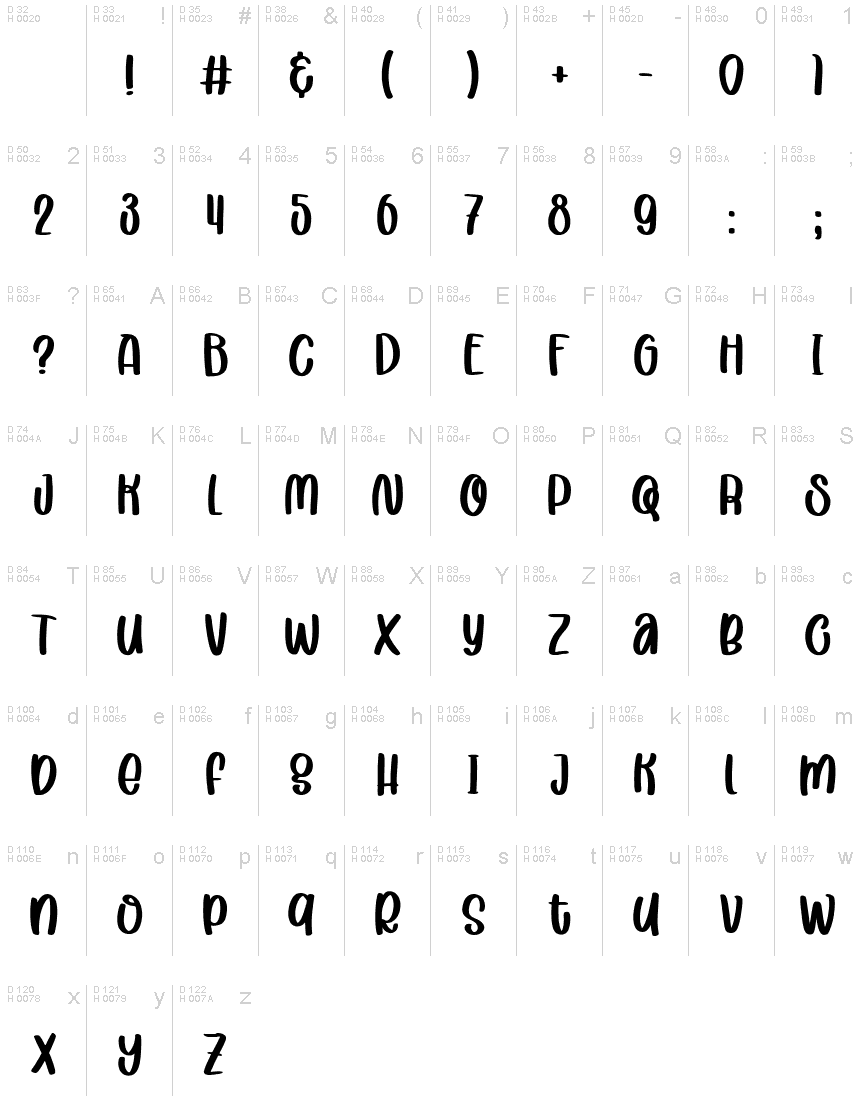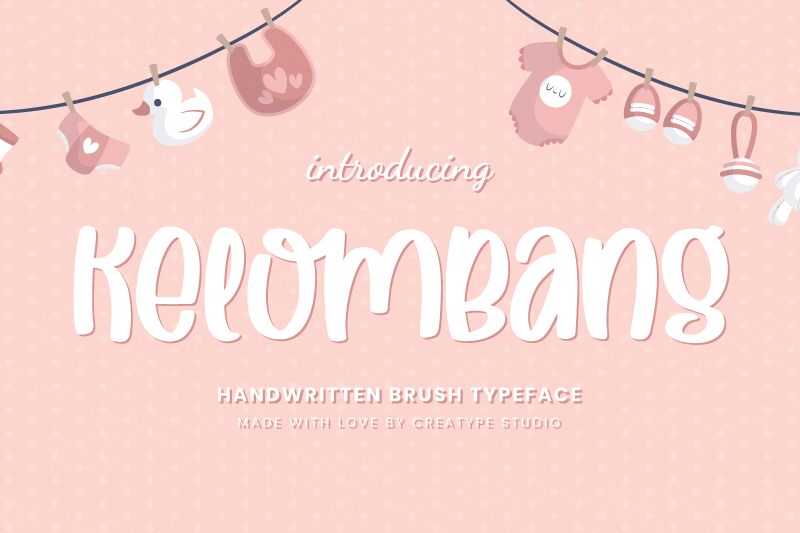
Kelombang Regular
Kelombang, the latest creation by Rian Rahardi, is a charming semi-condensed brush font that's perfect for a range of projects. Its playful, whimsical style lends itself perfectly to children's books, greeting cards, and invitations. But don't let its cuteness fool you; Kelombang also has an air of sophistication that makes it suitable for branding materials and packaging design. Whether you're creating a logo or designing a website, Kelombang will bring personality and flair to any project. With its unique curves and strokes, this font is sure to make your text stand out and leave a lasting impression on your audience.